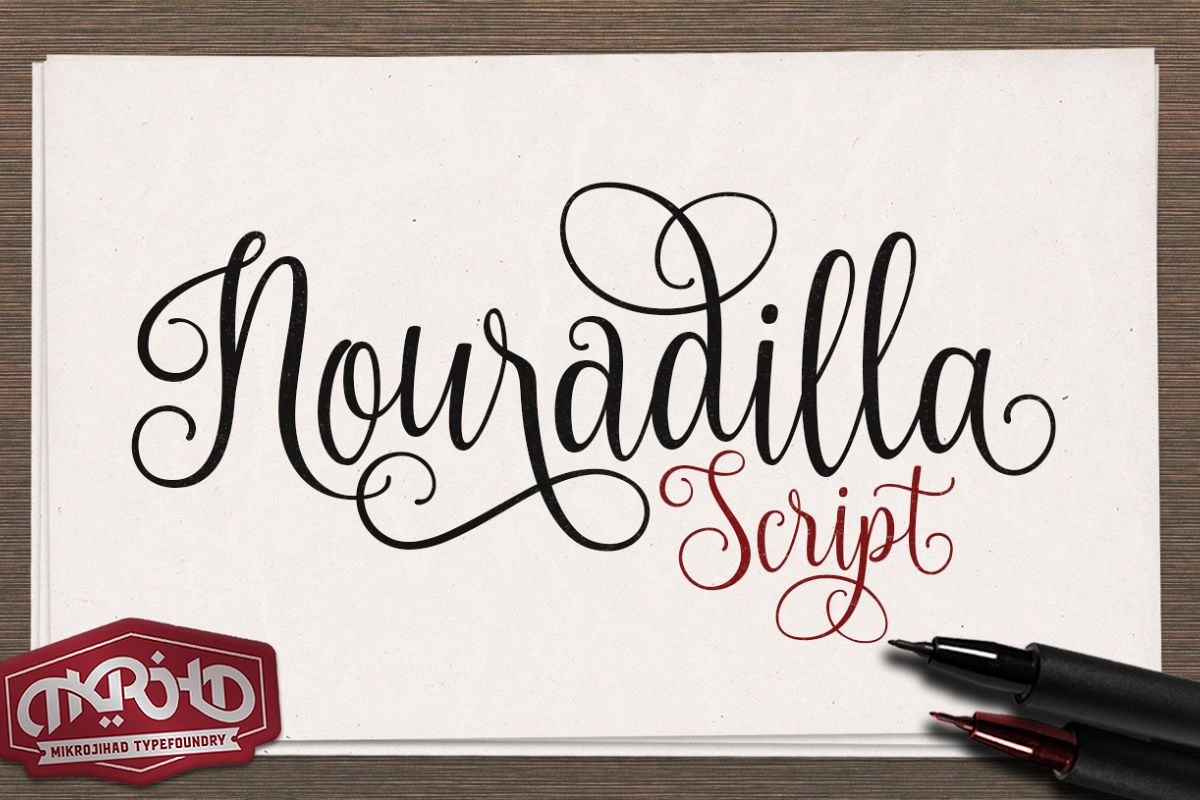
Nouradilla Script
Nouradilla is based on handwritten typography and a modern calligraphy style with up and down baseline.
Total 413 Glyphs.
Support Stylistic Alternates, Ligature, Contextual Alternate and Stylistic set ( up to 16 variants per letters).